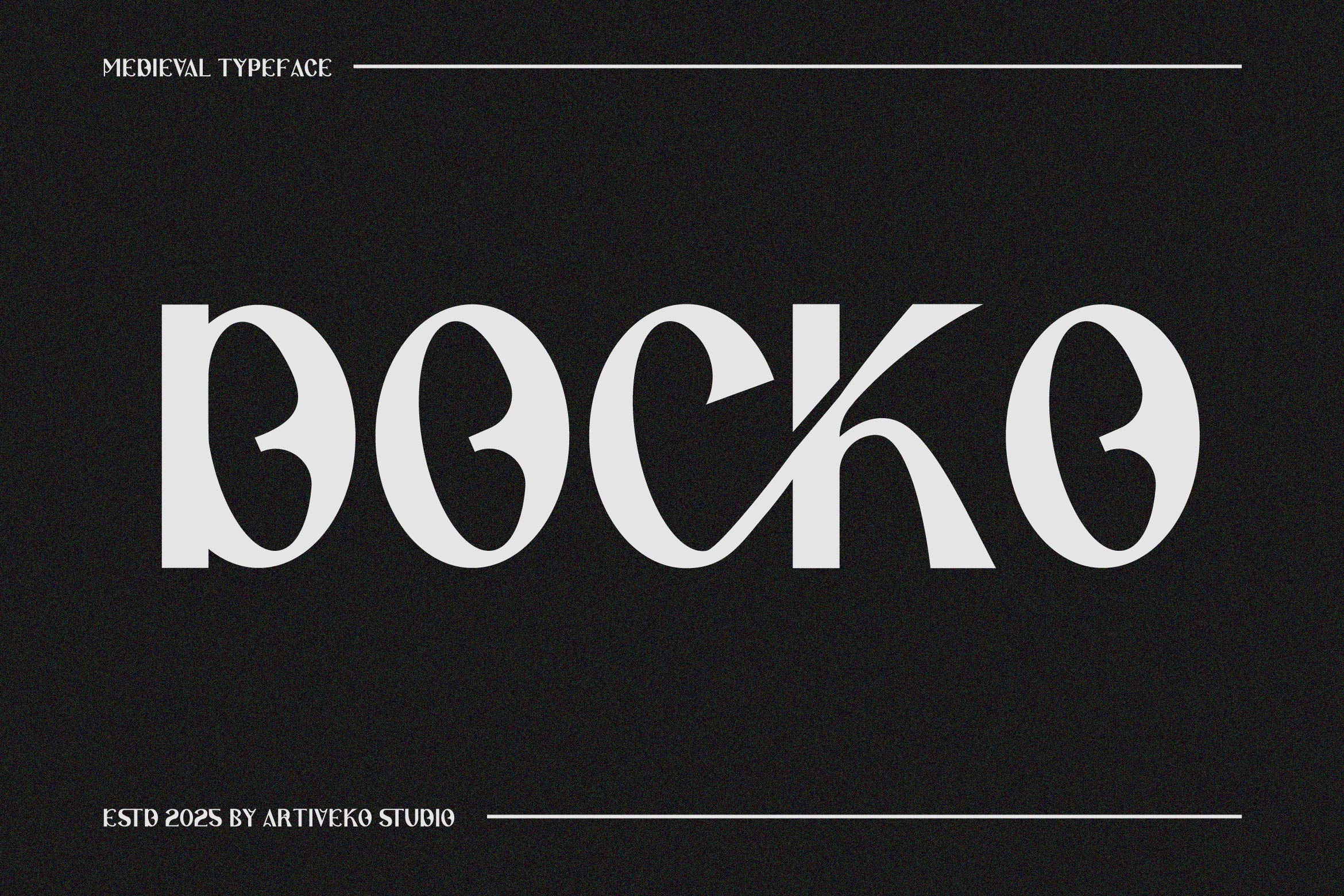
- Docko Display Sans Serif Font
Docko is a high-end display serif font that exudes sophistication and modern luxury. With its strong contrast, refined curves, and statement-making letterforms, Docko is perfect for premium branding, editorial titles, fashion magazines, packaging, invitations, and upscale marketing visuals.
Designed to command attention while maintaining elegance, Docko works beautifully in headlines, logos, and visual identities that demand both style and impact. Its sharp serifs and well-crafted details add a timeless, editorial touch to every composition.
Make a bold impression with Docko — the luxury display font that brings power, beauty, and high fashion to your designs.